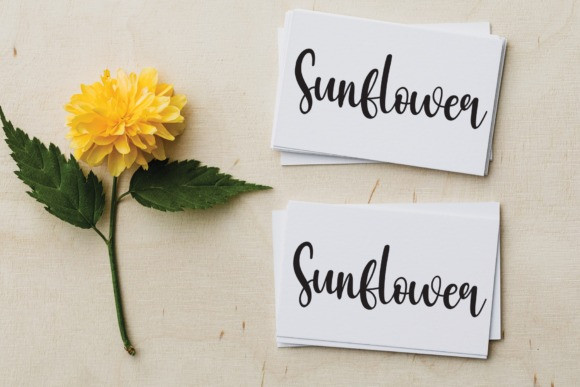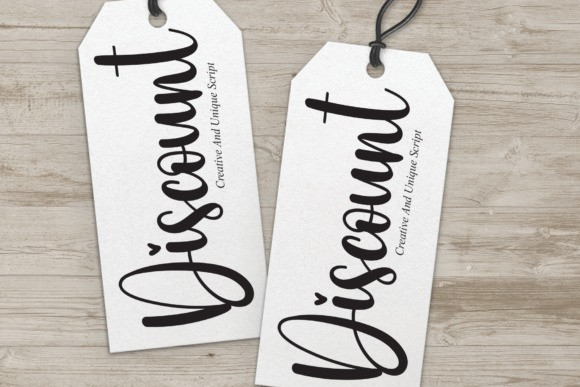
Dashing Script Font
Dashing Script Font,  beautiful letters are perfect for wall displays, wedding invitations, social media post logos, advertisements, product packaging, product designs, labels, photography, watermarks, invitations, stationery, and any project that requires a handwritten taste.